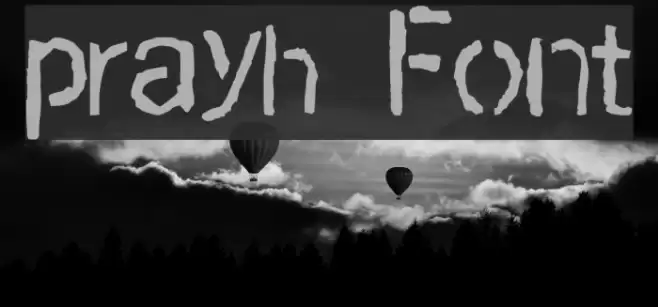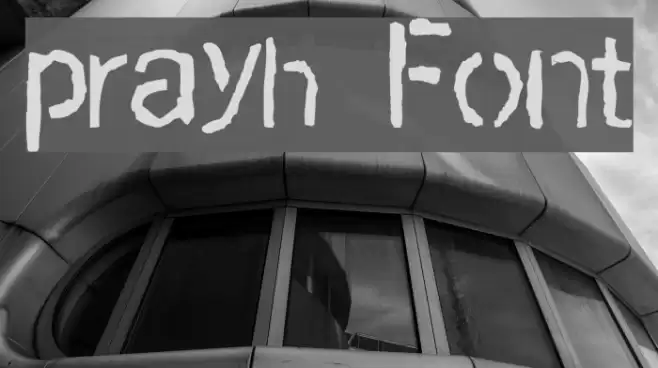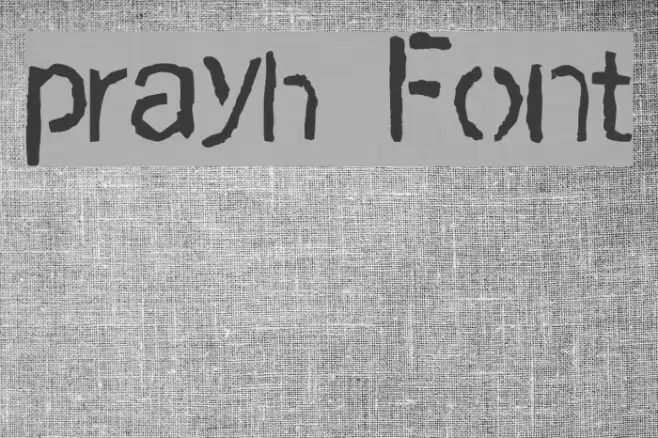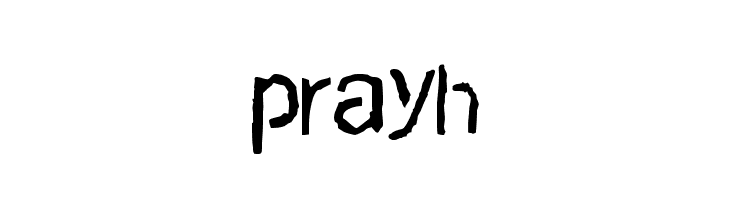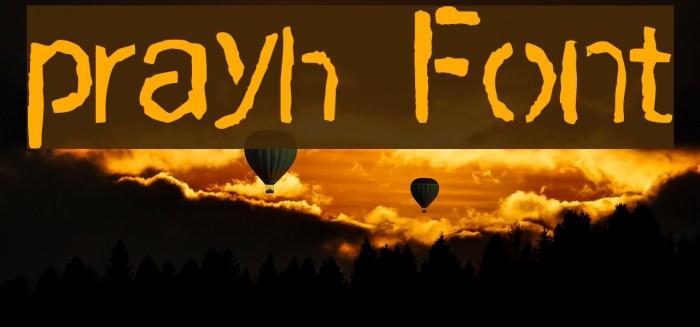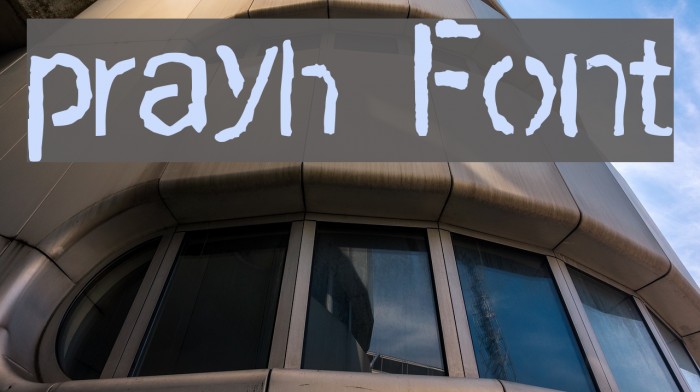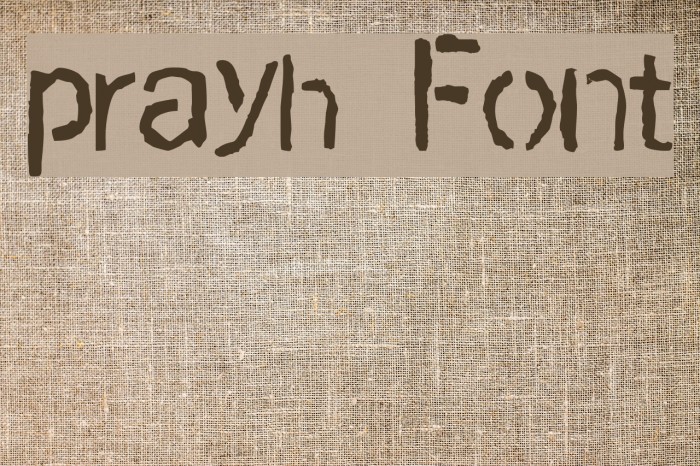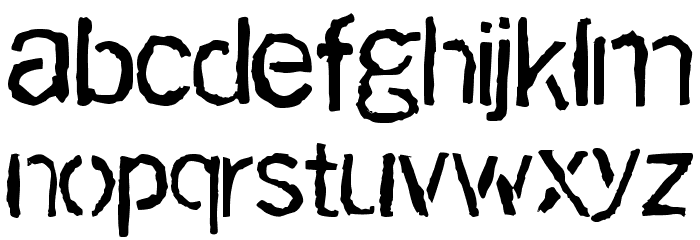
prayh Font
prayh Description
This font features a distinctive, hand-drawn appearance with an organic and slightly irregular style. The characters have a rough, textured look, reminiscent of brush strokes or ink on paper. The uppercase and lowercase letters maintain a consistent style, with a playful yet edgy vibe. The numbers and special characters follow the same aesthetic, making the font cohesive across all elements. The overall design conveys a sense of creativity and artistic flair, suitable for projects that require a unique and personal touch.
A hand-drawn, textured font with an artistic and organic style from Distorted Eroded fonts.
- Proposed Projects: Ideal for creative projects such as posters, album covers, artistic branding, and invitations that require a personal and unique touch.
- Overall Style: Artistic
- Use Case: Logos, Posters, Artistic Branding